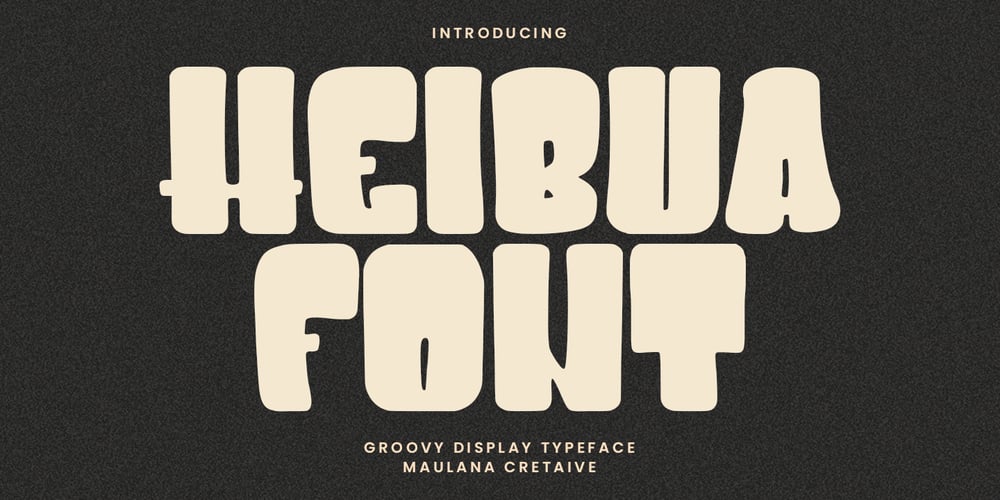
MC Heibua Font Family was designed by Gilang Maulana and published by Maulana Creative. MC Heibua contains 1 styles and family package options. Heibua groovy display typeface. Heavy stroke, fun character with a bit of ligatures. To give you an extra creative work. Heibua groovy display typeface support multilingual more than 100+ language. This font is good for logo design, Social media, Movie Titles, Books Titles, a short text even a long text letter and good for your secondary text font with script or serif. Make a stunning work with Heibua groovy display typeface. Cheers, Maulana Creative